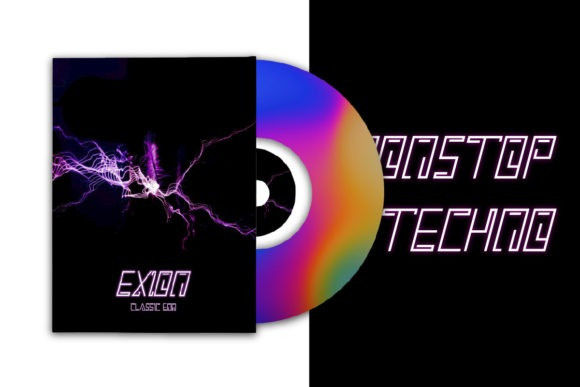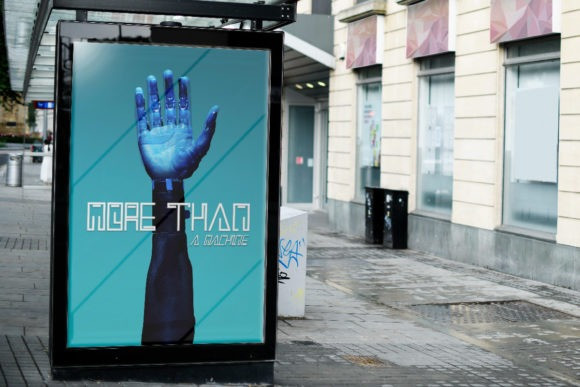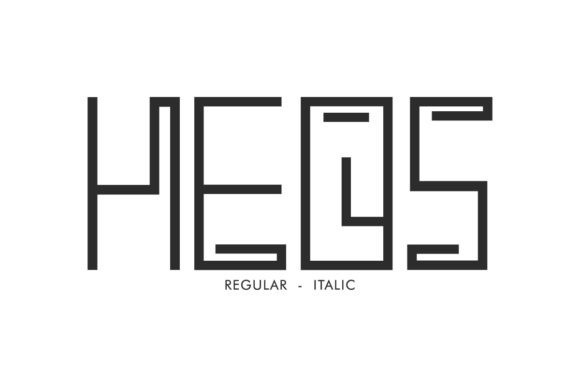
Heos Font
Heos Display Font is a cool and square-lettered display font. This font is ideal for writing web designs, business cards, or pretty much anything else that requires a techno touch.